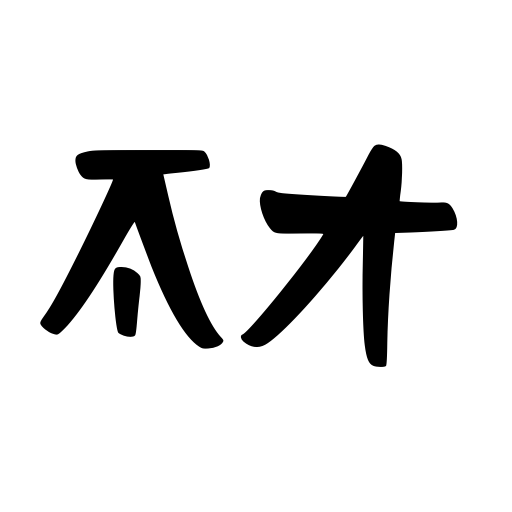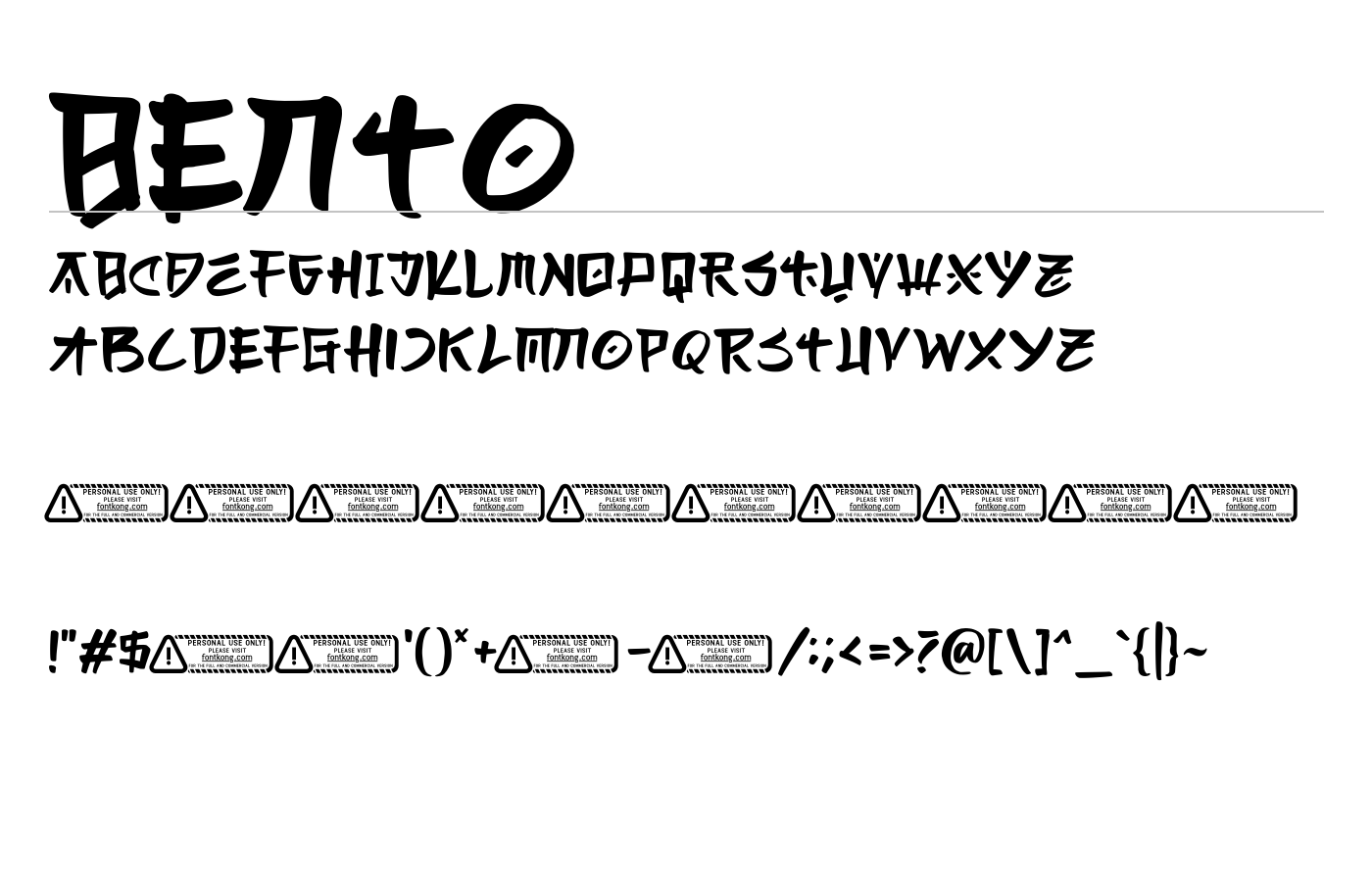
Bento Font is a bold, display-style typeface with a playful and hand-drawn feel, characterized by its irregular, slightly condensed letterforms and high contrast between thick and thin strokes. Its unique, casual shapes and strong presence make it perfect for creative branding, eye-catching headlines, and expressive packaging that seek to convey energy and personality. This font works best where a fun and informal vibe is desired, adding distinctive charm to any design project.
Bento Font
About Bento Font